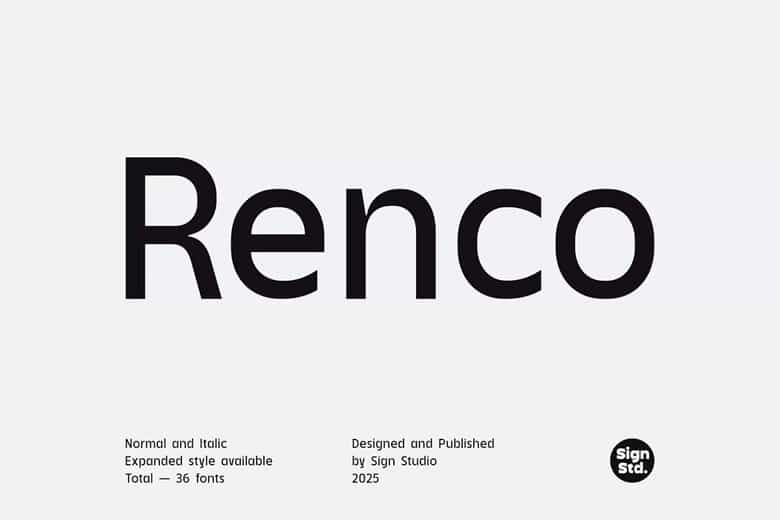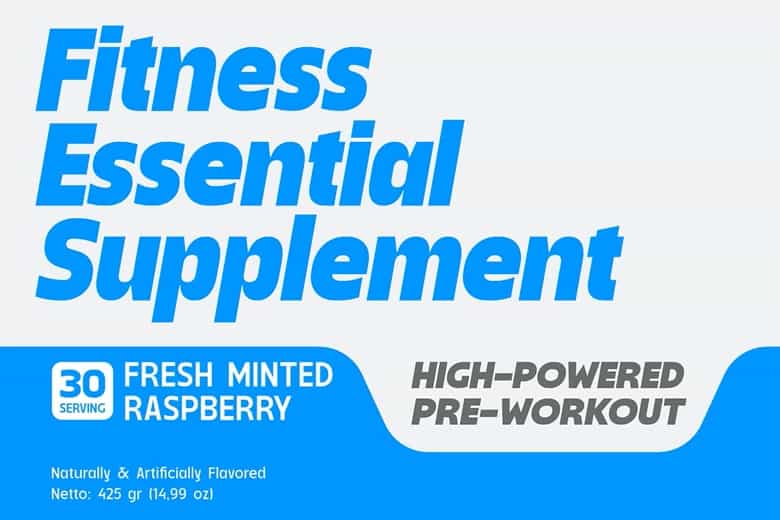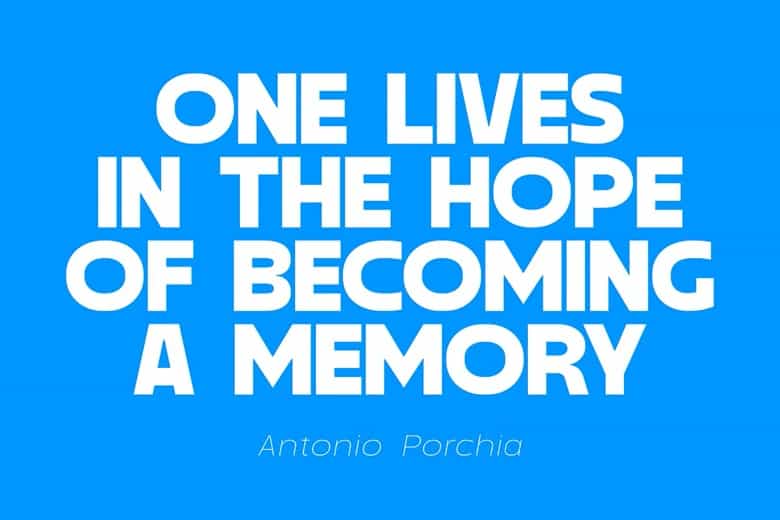
Discover Renco Font Family, part of the Sans Serif collection—a versatile and unique font perfect for adding a personal touch to your projects. Download it for free and enjoy crafting designs with style, from invitations to social media posts. This font is available exclusively for personal use, giving you the freedom to create without limits. Unlock your creativity with Renco Font Family today!
The Renco typeface is created now to be easy to use and understand clearly. Because of how accurate and polished it is, these typefaces cover a lot of areas—from branding projects to arranging magazines or journals. You can use this type family in different ways by selecting from Thin to Black which are the 9 weights available. All weights include a Normal and an Expanded width to fit into many composition styles. Every style is also offered in Italic which is slanted 10 degrees to make the design more lively.